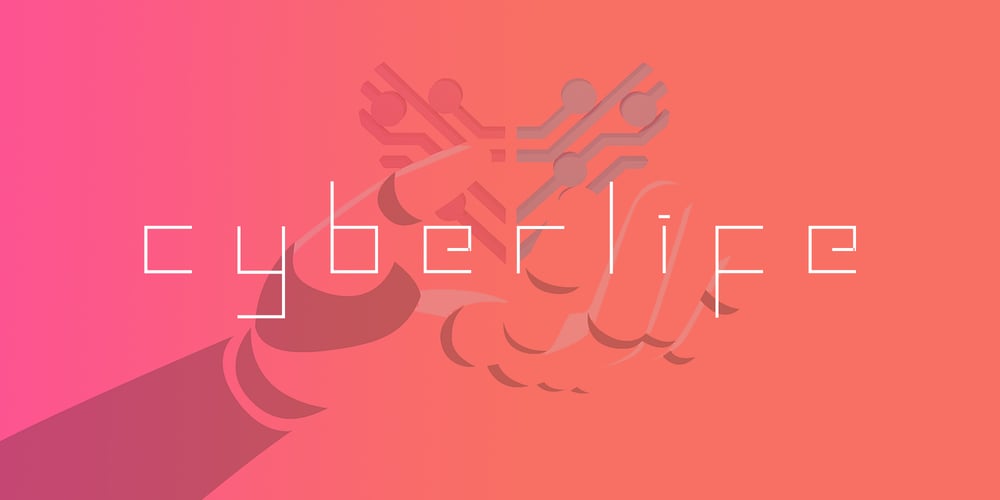
Miometry Font Family was designed by Hakan Polat and published by HakanPolatovic. Miometry contains 1 styles and family package options. GEOMETRICAL PERFECTNESSEvery letter of miometry has a ratio to one anotherSHARPNESSDue it’s design,it has a elegant look at first sightRATIONALITYIt can even be used in every kind of rational system like patterns etcINSPIRED BYConcepts like futurism,transhumanism,cyberpunk,cyberworld etc